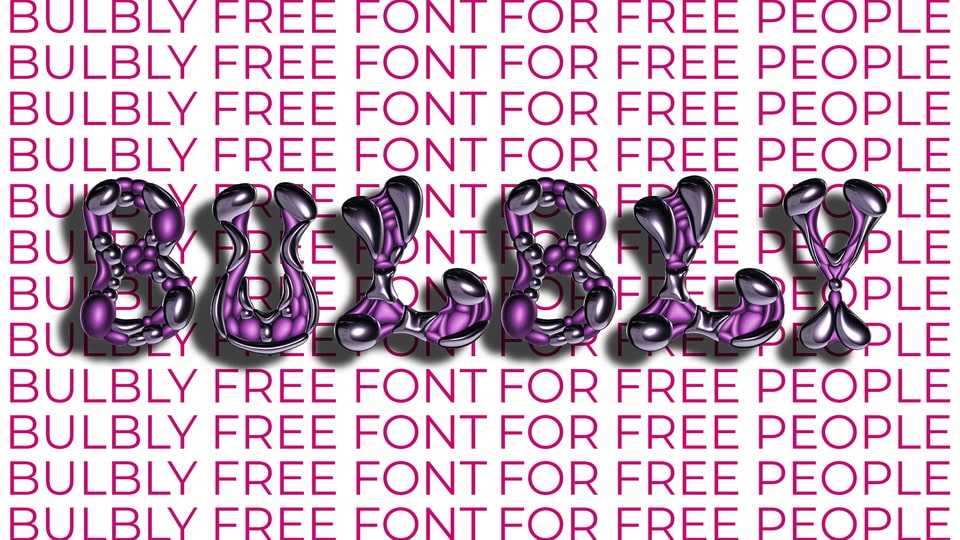
Download Bulbly font, a display typeface with interesting flowing shapes created for open creativity with the slogan “free font for free people”. The project is presented with posters, video animation, presentation, interactive website and AR filters.
Designer: Nasta Sep